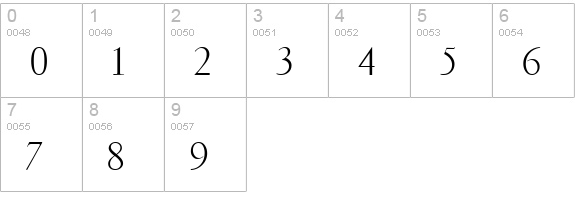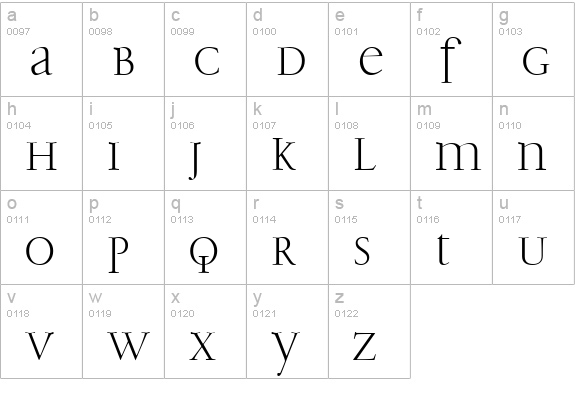
PFGaramond Classic Unicase is a timeless and elegant font that exudes sophistication and charm. Its unique unicase design combines the classic Garamond style with modern touches, resulting in a versatile and stylish typeface that is perfect for a wide range of design projects. Each letter in PFGaramond Classic Unicase is carefully crafted with attention to detail, showcasing a perfect balance between traditional elegance and contemporary flair. The font's clean lines and graceful curves make it a standout choice for both print and digital design applications. Best of all, PFGaramond Classic Unicase is available for free download at FontsMarket.com. This means that you can easily access this exquisite font without any cost, making it a valuable addition to your font collection. Whether you're working on branding, editorial design, or any other creative project, PFGaramond Classic Unicase is sure to elevate your work with its timeless beauty and sophistication.